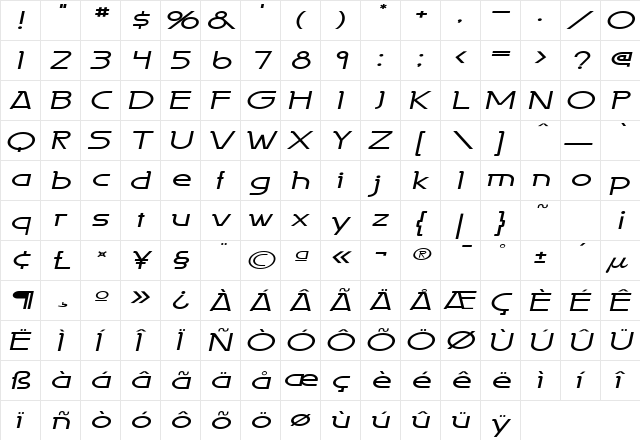
Persia Extended Italic
Design Context for Persia Extended Typeface
Persia Extended takes a measured approach to typography — its balanced proportions and neutral character make it a reliable workhorse for both digital and print work. The slanted form adds forward momentum and visual energy.
Pro Tip: Use Persia Extended for emphasis, pull quotes, and subheadings where its slanted energy can add rhythm to the layout.